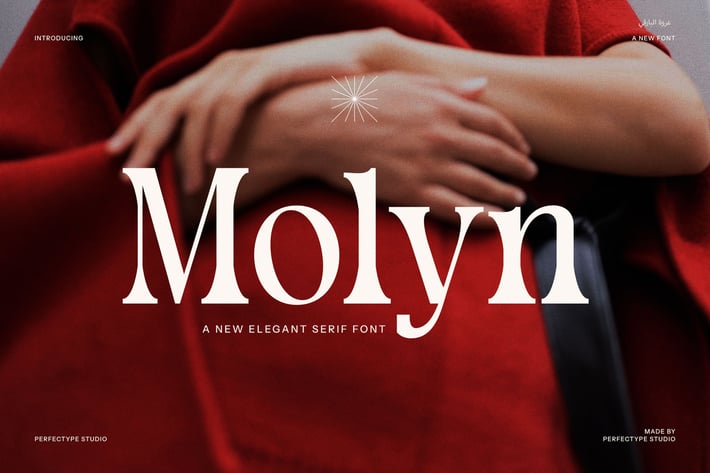
Molyn Modern Serif Font
Molyn Modern Serif Font is a refined and stylish typeface that combines timeless elegance with a contemporary twist. Designed with sophistication in mind, this font offers a unique balance of classic serif elements and modern aesthetics, making it a versatile choice for a variety of design projects. Its clean lines and beautifully crafted letterforms lend it an air of exclusivity, while maintaining readability and clarity.
Ideal for use in high-end branding, luxury logos, and upscale advertisements, Molyn Modern Serif brings an elevated feel to any project. Whether you’re designing for a boutique, a premium product line, or a high-fashion magazine, this font provides a perfect blend of modernity and tradition. Its versatility extends across digital and print media, making it suitable for websites, product packaging, and even restaurant menus.
Molyn Modern Serif is more than just a typeface—it’s a statement. With its graceful curves and distinctive shapes, it’s designed to captivate attention while adding a sense of refinement to your design. Whether used in headings, body text, or creative layouts, this font adds a touch of class to everything it graces. If you're looking for a font that combines luxury with contemporary appeal, Molyn Modern Serif is the perfect choice to elevate your designs.
Bring your creative vision to life with Molyn Modern Serif, and make every word resonate with timeless style.